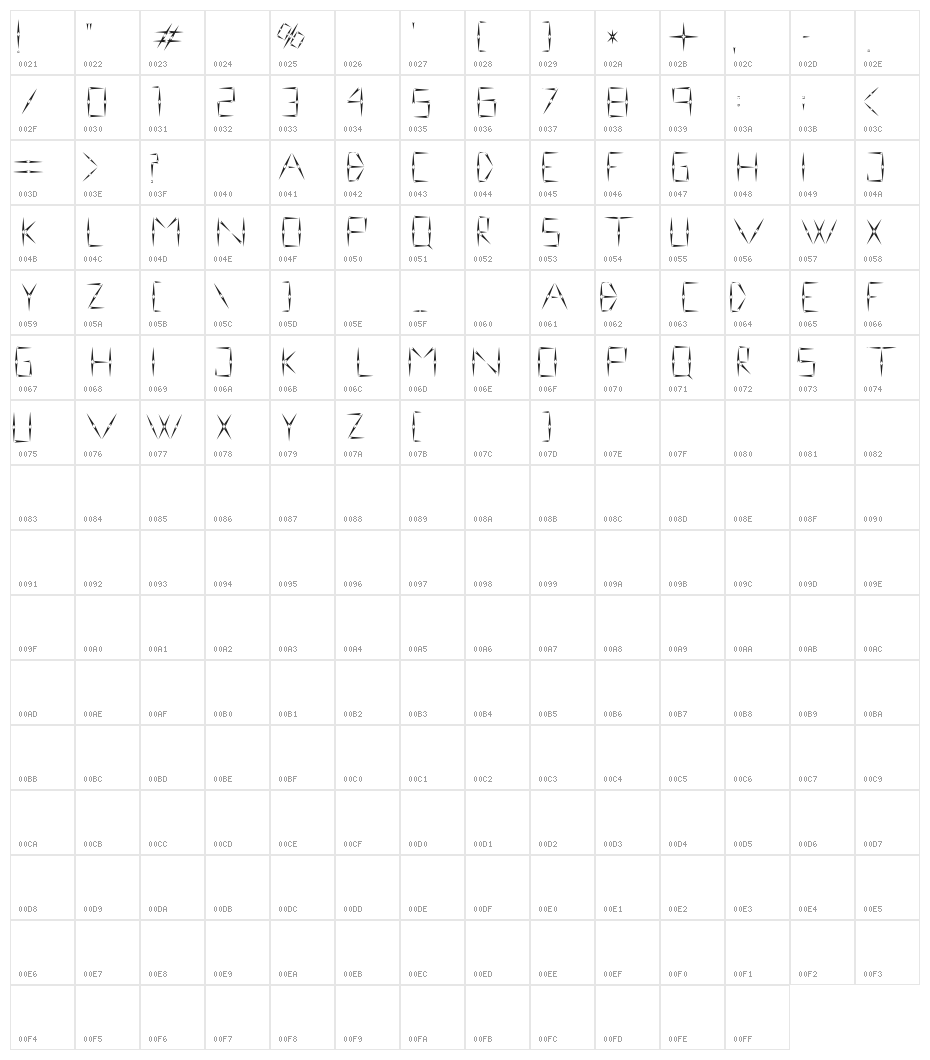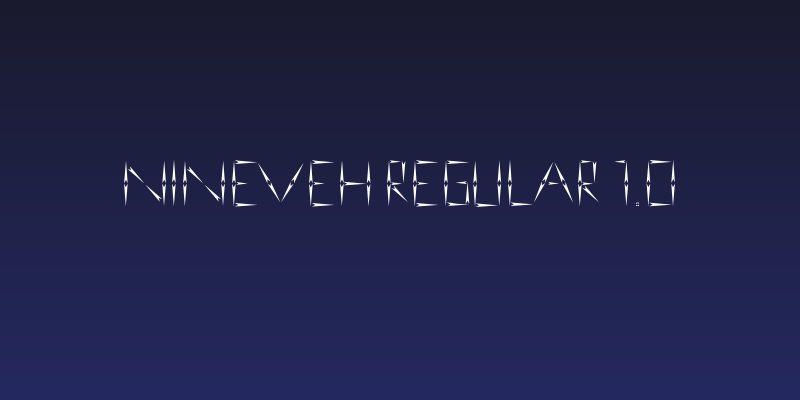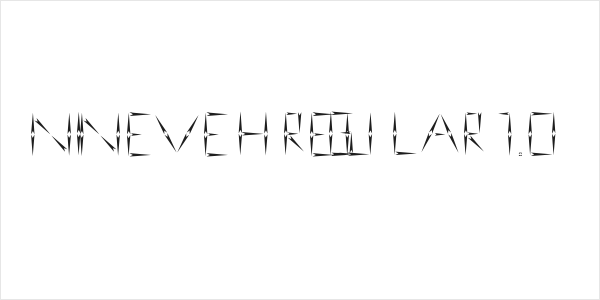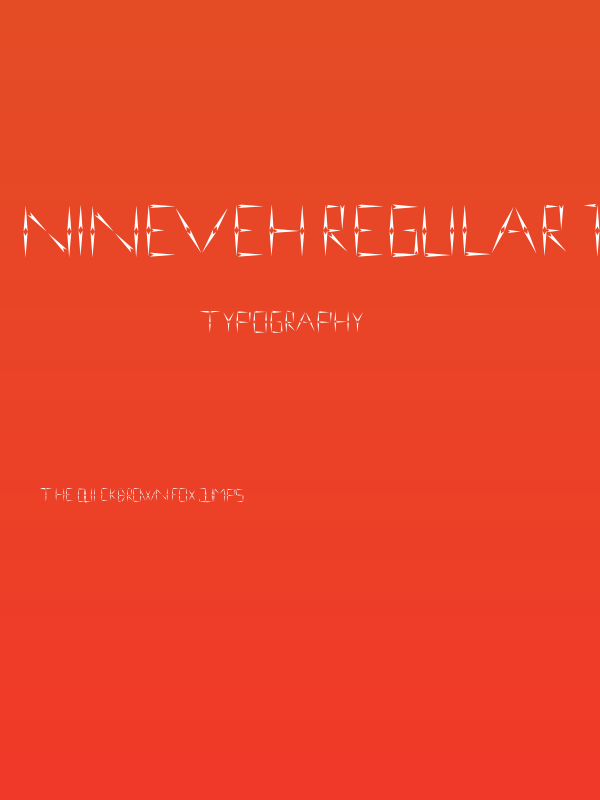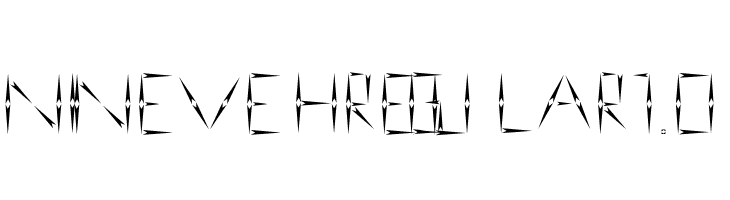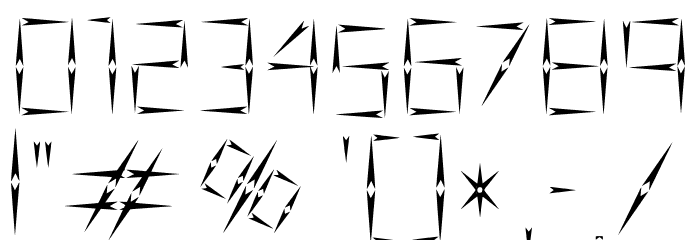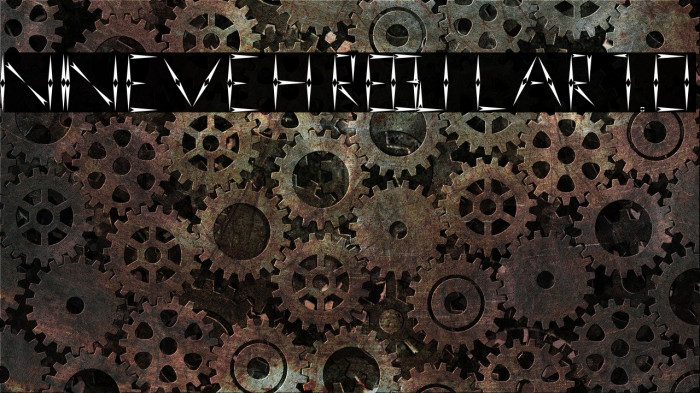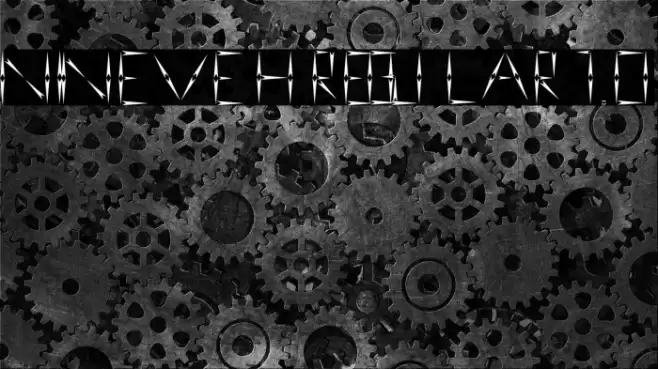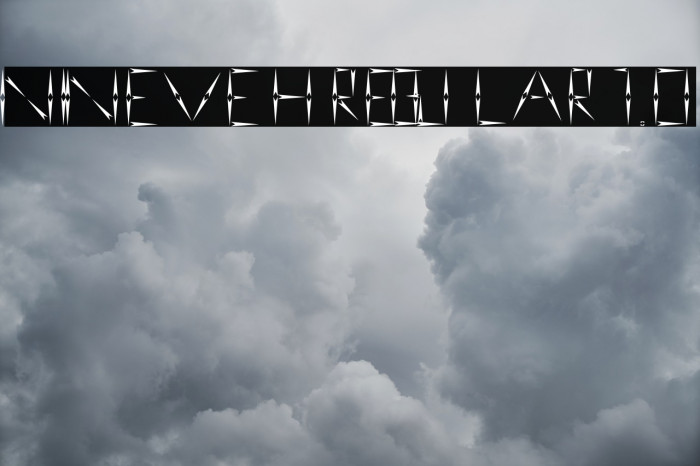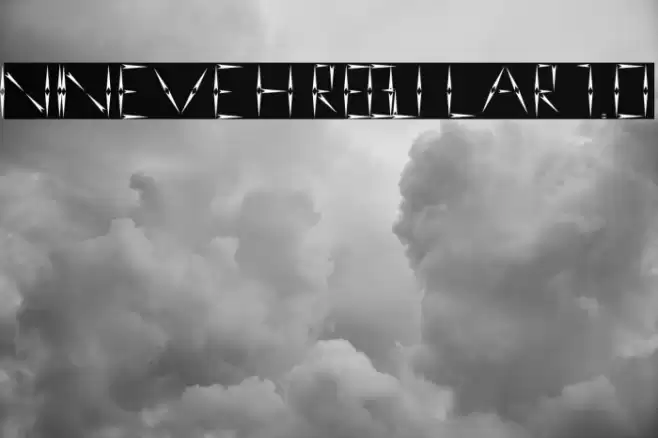
nineveh regular 1.0 Font
| Anwendungsfall | Logos, Headlines, Posters |
| Vorgeschlagene Projekte | Ideal for projects requiring a bold and artistic touch, such as posters, album covers, and branding for edgy or alternative products. |